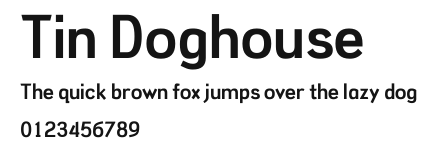
• Font Name: Tin Doghouse
• Full Font Name: Tin Doghouse
• Designer: Darren Rigby
• Description: Inspired by the game "The Hounds of Tindalos" by Michael Selinker, in which the scoring of a word you play is based on the shapes of the letters in the word.
About Tin Doghouse.ttf
Tin Doghouse.ttf is a modern, elegant sans-serif font designed for ultimate readability and visual harmony. Perfect for branding, headlines, web design, and print materials.